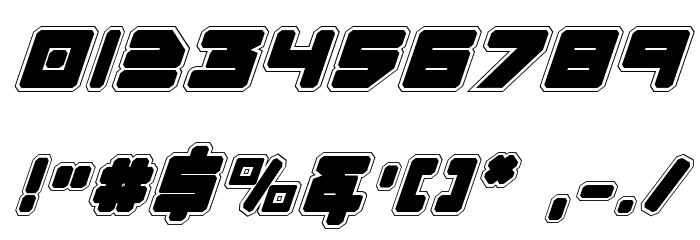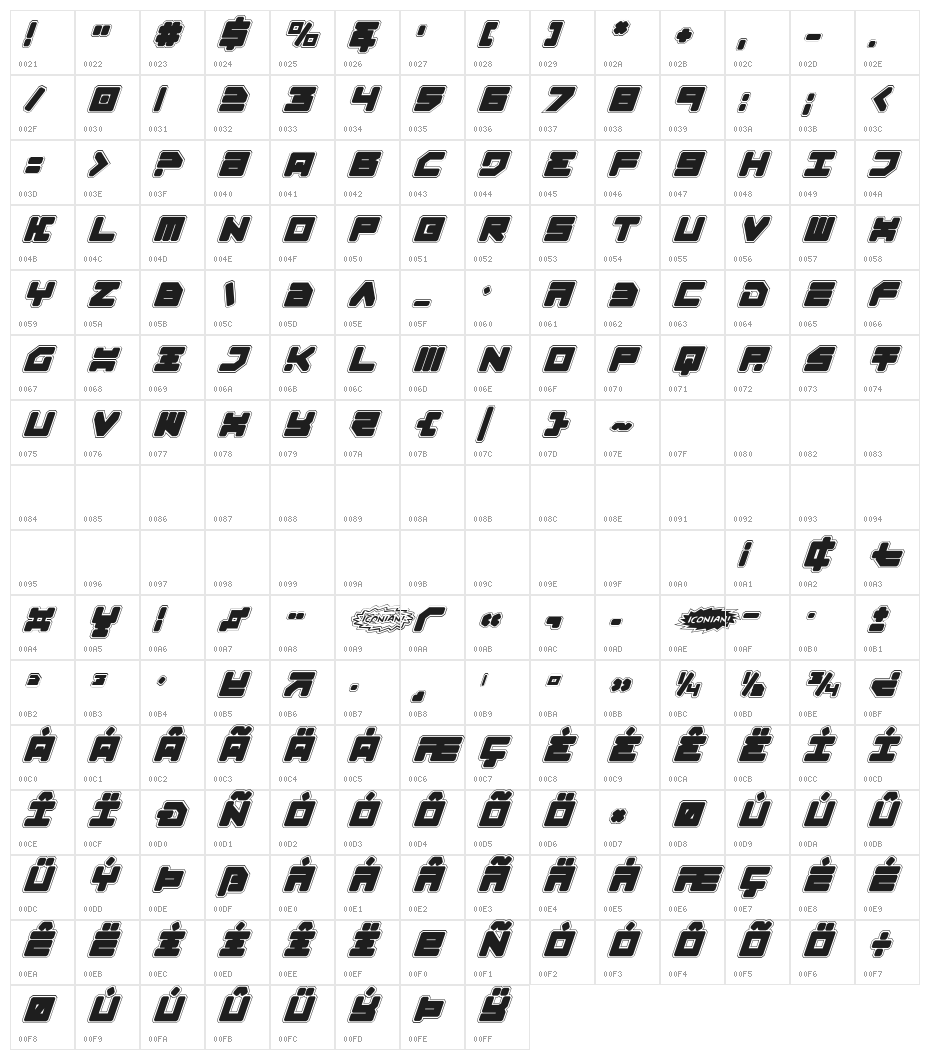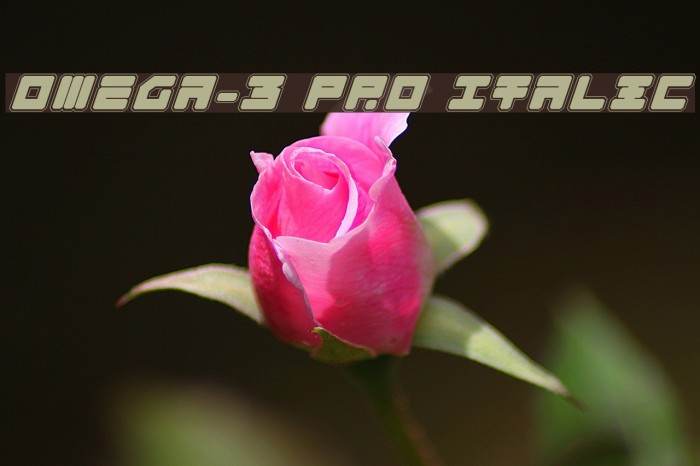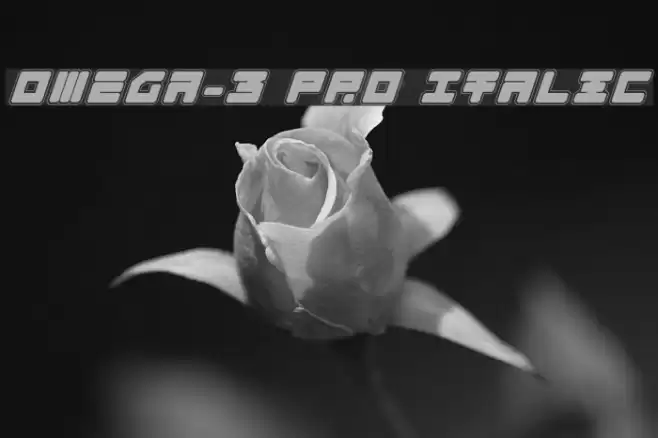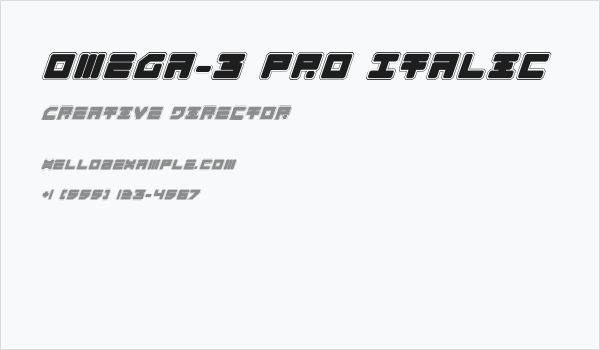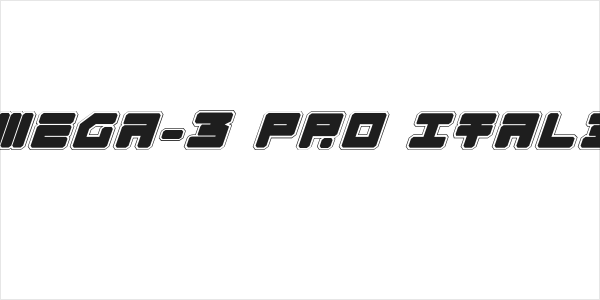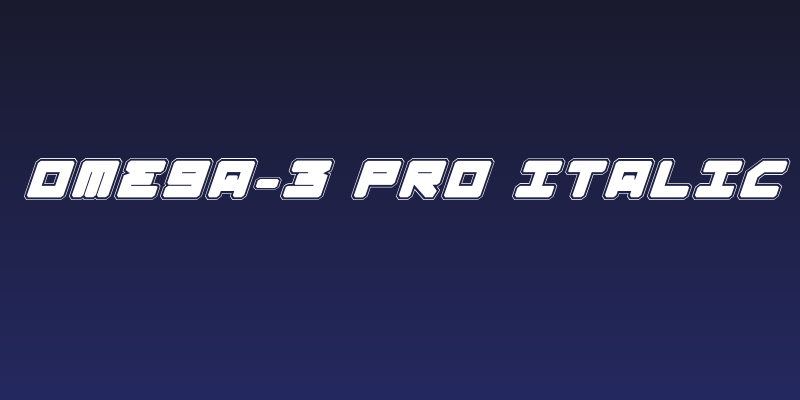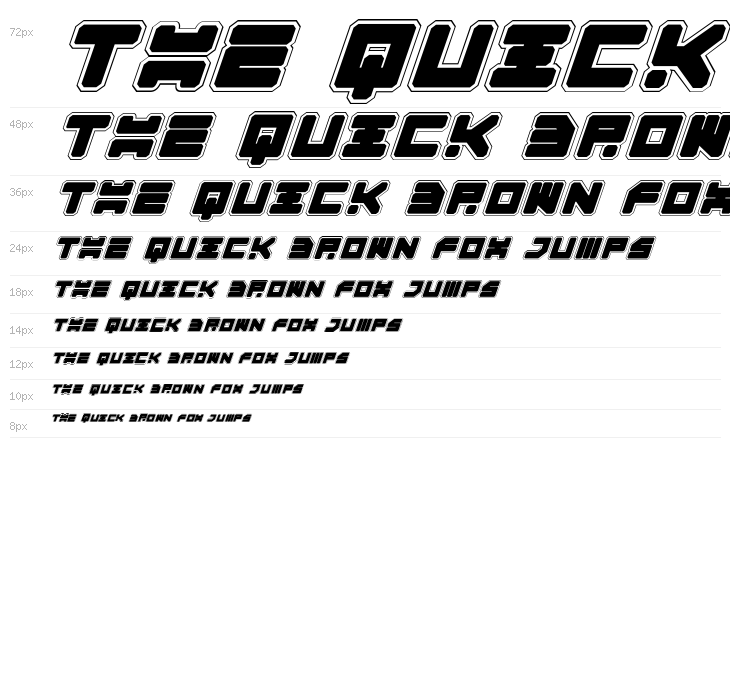
Omega-3 Pro Italic Font
Omega-3 Pro Italic Description
This font features a bold, futuristic design with a distinct italic slant, giving it a dynamic and forward-moving appearance. The characters are outlined with a thick border, enhancing their visibility and impact. The geometric shapes and sharp angles contribute to a modern and tech-inspired aesthetic. Each letter and number is uniquely stylized, providing a sense of uniformity while maintaining individuality. The special characters are equally bold and consistent with the overall design, making them suitable for attention-grabbing headlines or logos.